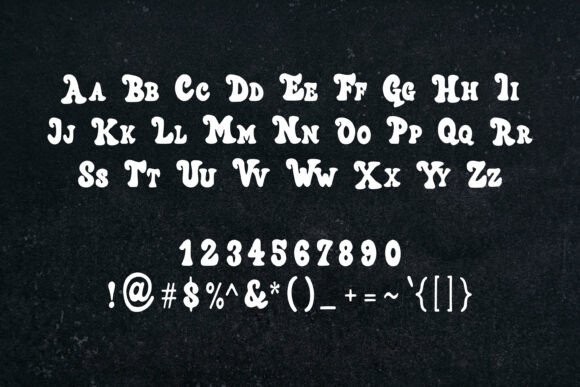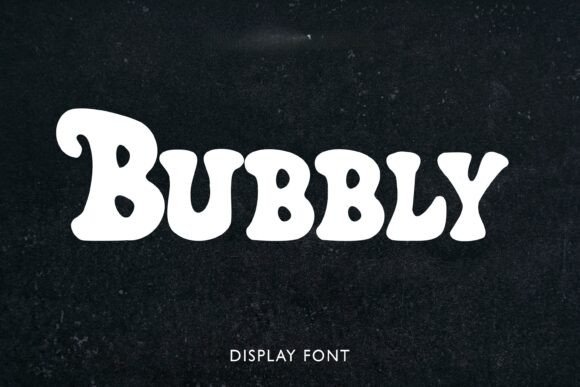
Bubbly Serif Font: Elevate Your Designs with a Touch of Elegance and Playfulness
Are you on the hunt for a font that can effortlessly adapt to your creative vision? Look no further than the Bubbly Serif Font, a captivating typeface designed to complement a wide range of projects. Whether you’re aiming for elegance, modernity, playfulness, or a bold statement, this font is the perfect choice. In this article, we’ll dive into the world of Bubbly Serif Font and explore its versatility, features, and uses.
A Font for Every Creative Project
The Bubbly Serif Font is a versatile typeface that can be used in various creative projects. Its unique and polished touch makes it perfect for:
- Branding: Establish a strong brand identity with a font that exudes elegance and sophistication.
- Book Covers: Create eye-catching covers that grab attention and convey the tone of your story.
- Posters: Design striking posters that showcase your message with clarity and style.
- Packaging: Elevate your product packaging with a font that adds a touch of luxury and refinement.
- Merchandise: Create stunning merchandise that reflects your brand’s personality and aesthetic.
Key Features of Bubbly Serif Font
So, what makes Bubbly Serif Font so special? Here are some of its key features:
- Unique and Polished Touch: The font’s distinctive serif design adds a touch of elegance and sophistication to any project.
- Versatile: Bubbly Serif Font can be used in a wide range of creative projects, from branding and book covers to posters and packaging.
- Easy to Read: The font’s clear and legible design ensures that your message is conveyed with clarity and precision.
- Customizable: Experiment with different font sizes, colors, and styles to make Bubbly Serif Font your own.
Why Choose Bubbly Serif Font?
With so many fonts available, why choose Bubbly Serif Font? Here are just a few reasons:
- Time-Saving: With Bubbly Serif Font, you can save time and effort in finding the perfect font for your project.
- Consistency: Use Bubbly Serif Font across multiple projects to establish a consistent brand identity.
- Creativity: The font’s versatility and customizability make it the perfect choice for designers and crafters looking to push the boundaries of their creativity.
Tips for Using Bubbly Serif Font
To get the most out of Bubbly Serif Font, here are some tips to keep in mind:
- Experiment with Font Sizes: Play around with different font sizes to create visual hierarchy and emphasis.
- Pair with Other Fonts: Combine Bubbly Serif Font with other fonts to create a unique and eye-catching typography.
- Use Color Effectively: Select colors that complement the font and enhance the overall aesthetic of your design.
In conclusion, Bubbly Serif Font is a captivating typeface that can elevate your designs with a unique and polished touch. Its versatility, features, and ease of use make it the perfect choice for designers and crafters looking to bring their ideas to life. Whether you’re seeking elegance, modernity, playfulness, or a bold statement, Bubbly Serif Font adapts effortlessly to your vision. So why wait? Download Bubbly Serif Font today and let your creativity flow!